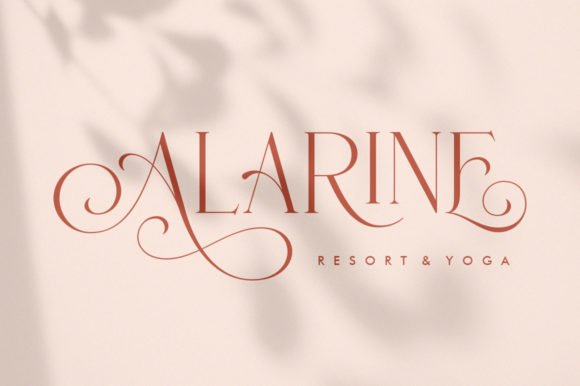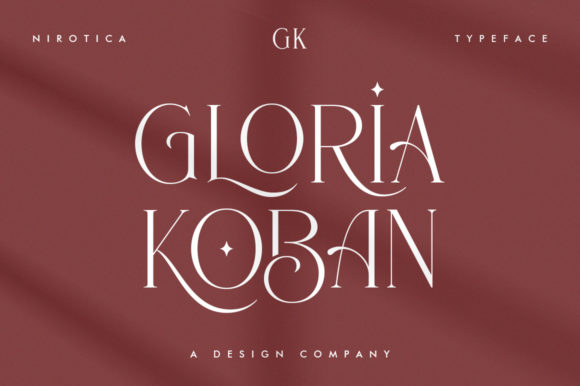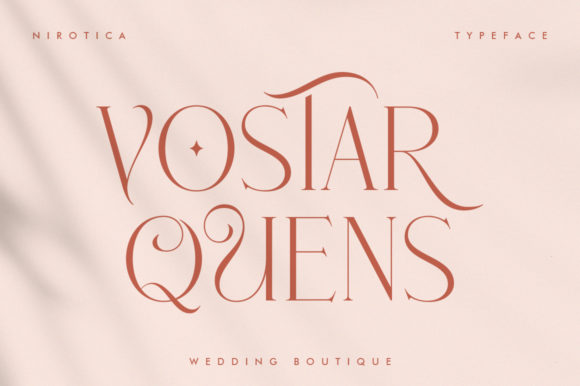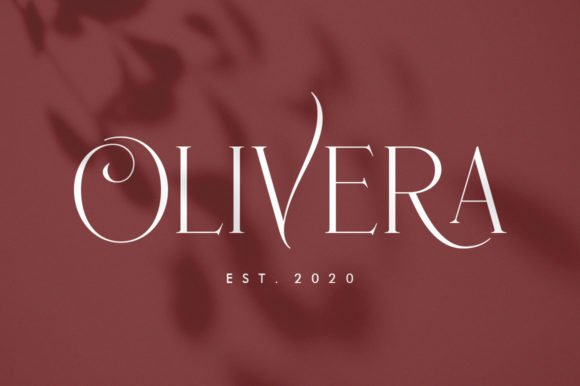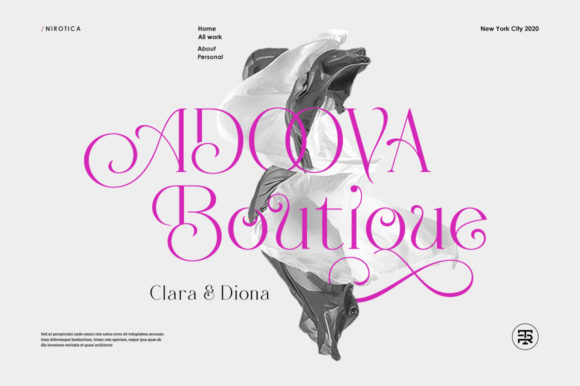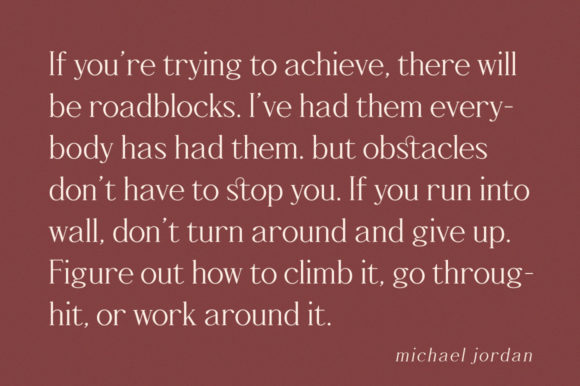
Introduction to Nirotica Font
Have you ever stumbled upon a font that makes your creative project come alive? For designers, finding the perfect font can be the difference between a good design and a great one. Recently, I discovered the Nirotica Font, and I’m excited to share its unique charm with you.
As a design enthusiast, I’ve spent countless hours searching for the perfect font to elevate my projects. With its clean, thin, and smooth vibe, the Nirotica Font is a game-changer. Whether you’re working on branding, product packaging, or invitations, this font is sure to impress. Its high-quality design and transparent background make it a valuable resource for any designer looking to add a touch of elegance to their work.
Key Features of Nirotica Font
- High-quality design resource ideal for creative projects, offering a unique and stylish aesthetic.
- Includes a range of glyphs and characters, making it suitable for a variety of creative applications, from digital art to print design.
- Perfect for designers and artists looking for a distinctive and eye-catching font to elevate their work, whether it’s a personal project or a professional design.
Honest Review: Nirotica Font
I recently stumbled upon the Nirotica Font while searching for a design resource for a creative project. The first thing that caught my attention was the unique and elegant design of this font. It’s perfect for projects that require a touch of sophistication and elegance.
- ✨ Supports transparent background, making it ideal for logo designs and branding
- ⚠️ Limited font styles available (only a few weights and styles)
- ⚠️ Not ideal for projects that require a lot of bold or dramatic font usage
Nirotica Font
The Nirotica Font is a versatile design resource perfect for any creative project. With its high-quality design and transparent background, it’s easy to incorporate into your work.
Tips for Getting the Most Out of Nirotica Font
Experiment with different font sizes, colors, and styles to create a unique look. Use the transparent background to create a sense of depth and dimension.
The Nirotica Font is perfect for creative projects, such as graphic design, digital art, and web design. It’s also great for presentations, reports, and documents where a high-quality font is needed.